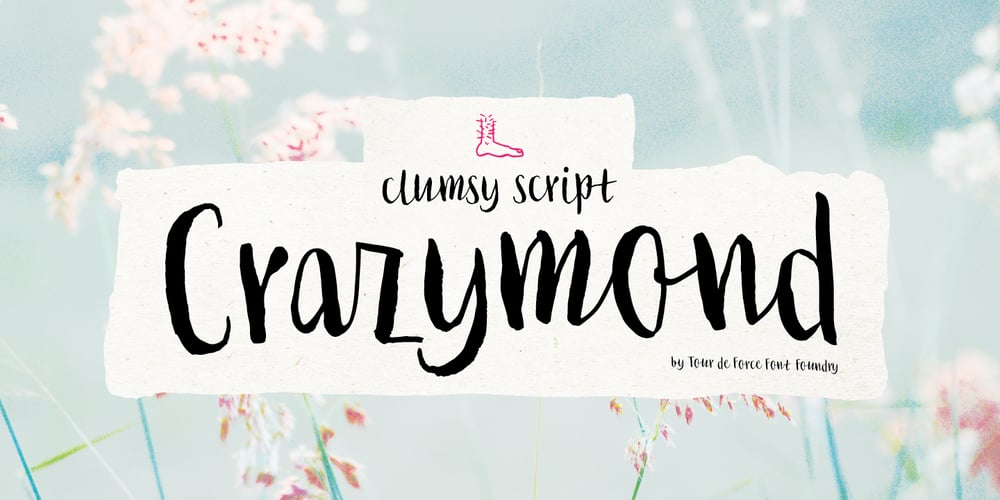
Crazymond Font Family was designed by Dusan Jelesijevic and published by Tour De Force. Crazymond contains 1 styles and family package options. Catchy, clumsy and charming – that’s Crazymond. Contains 38 ligatures, 12 ending characters and collection of 42 dingbats.